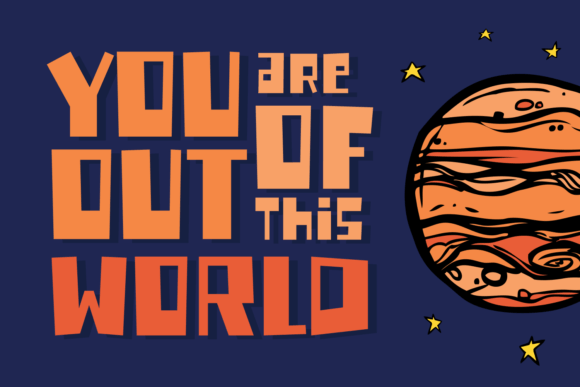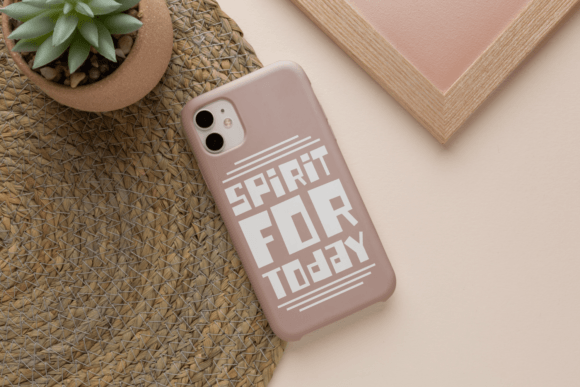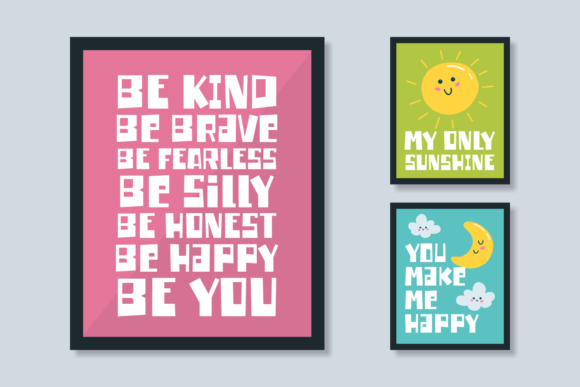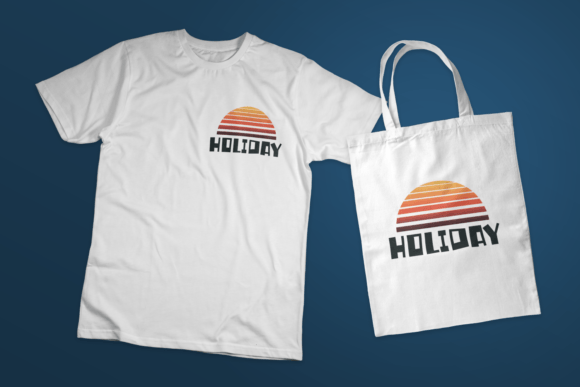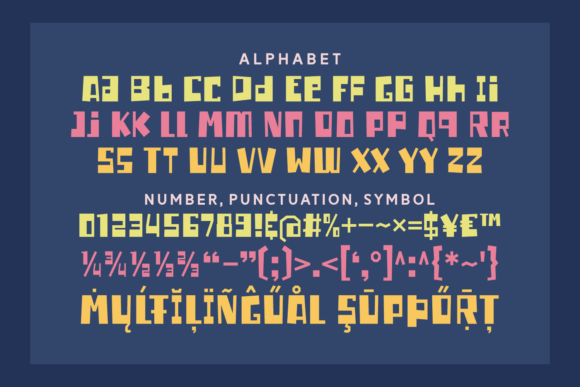
Introduction to Hilton Smart Font
Remember that moment when you finally nailed the design for your best friend’s birthday party invitation? The one where everything came together – the colors, the graphics, and the typography? For designers, moments like these are what make our job so rewarding. And, we’re about to share with you a design resource that can make your next creative project shine even brighter – the Hilton Smart Font.
This boxy and cheerful display font is a game-changer for designers looking to add a touch of personality to their work. With its free download option, you can instantly elevate your designs and make them stand out from the crowd. Whether you’re creating invitations, banners, posters, business cards, or marketing materials, Hilton Smart Font is sure to bring your vision to life.
One of the standout features of this high-quality font is its transparent background, making it easy to layer and combine with other design elements. And, with its versatility, you can use it for a wide range of creative projects, from modern logos to vintage-inspired graphics. So, get ready to unlock your design potential with the Hilton Smart Font!
Key Features of Hilton Smart Font
- High-quality font design with a transparent background, perfect for creative projects and designs that require a sleek, modern look.
- Unique characteristics: Clean, minimalist design, with a range of weights and styles to suit various design requirements.
- Perfect for use in logos, branding, typography, and other creative projects that demand a high level of sophistication and elegance.
Honest Review: Hilton Smart Font
I recently had the chance to dive into the Hilton Smart Font, a new design resource that’s been generating buzz in the creative community. Overall, I’m impressed with what this font has to offer, especially for designers working on high-quality projects.
Here are some of the things that work well with the Hilton Smart Font:
- ✨ High-quality design: The font is clean, modern, and visually appealing, making it perfect for creative projects that require a touch of sophistication.
- ✨ Transparent background: The font comes with a transparent background, allowing for seamless integration with any design element.
- ⚠️ Limited customization options: While the font itself is great, I found the customization options to be somewhat limited, which may not be ideal for designers who like to experiment with their designs.
Overall, I’m impressed with the Hilton Smart Font and would recommend it to designers working on high-quality, creative projects. It’s a great addition to any design resource library, and I appreciate that it’s available for free download.
Hilton Smart Font
Hilton Smart Font is a high-quality design resource ideal for creative projects. This versatile font features a transparent background, making it perfect for use in various design applications.
Tips for Getting the Most Out of Hilton Smart Font
To get the most out of Hilton Smart Font, experiment with different font styles and sizes to create unique and visually appealing designs. Combine the font with other design elements, such as images and graphics, to create a cohesive and engaging visual identity.
Hilton Smart Font is ideal for use in a variety of creative projects, including:
- Logo creation
- Infographic creation